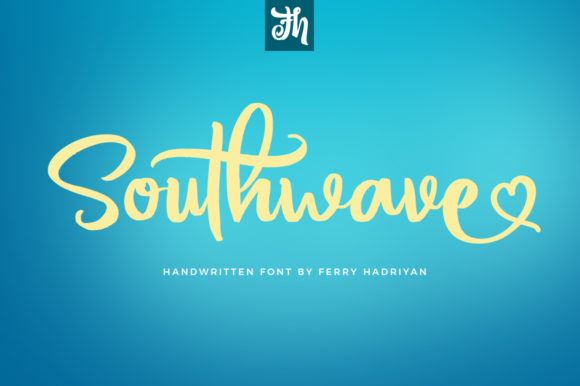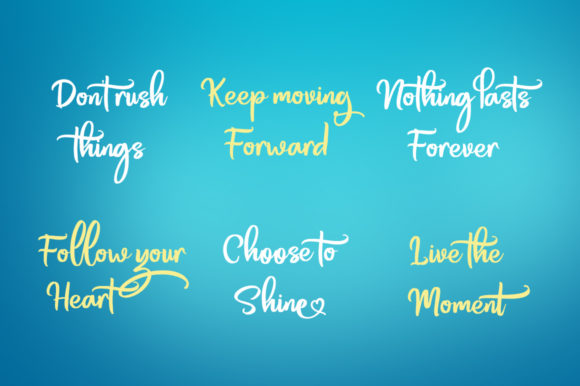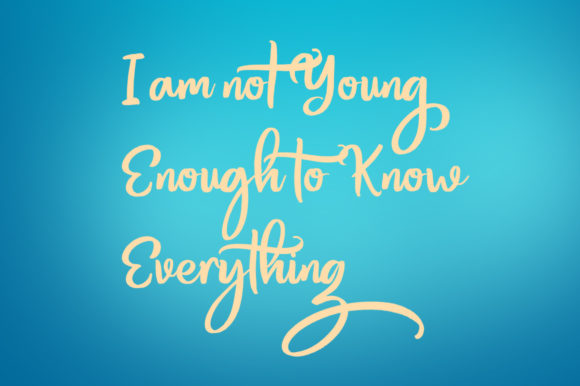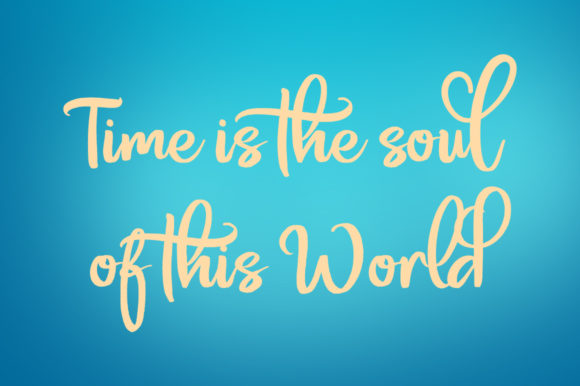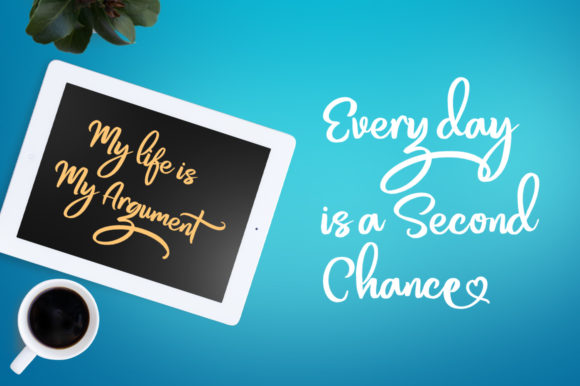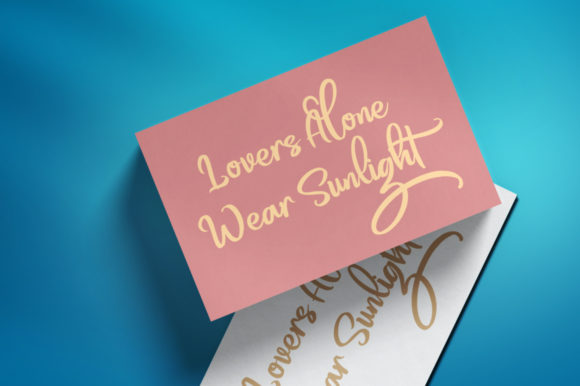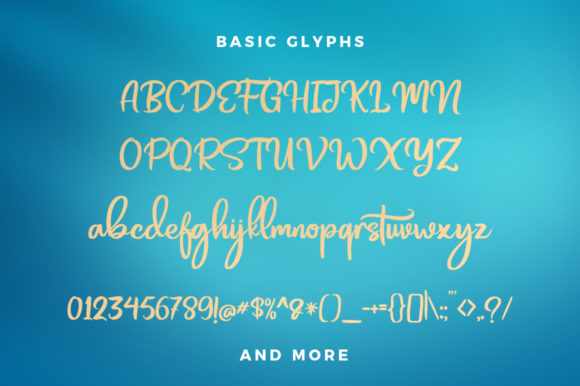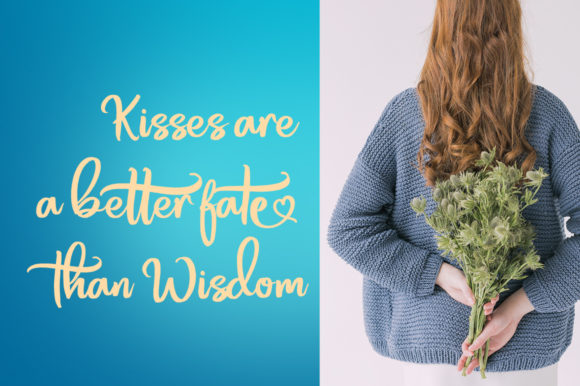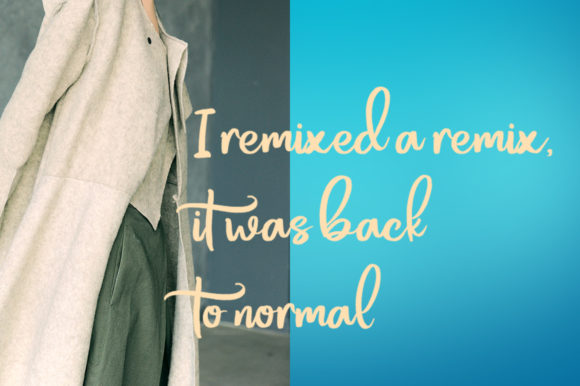
Southwave Font
About Southwave Font
Southwave is inspired by classic typography and brings its own unique style to any design project. It will elevate a wide range of design projects to the highest level, be it branding, headings, wedding designs, invitations, signatures, logos, labels, and much more!